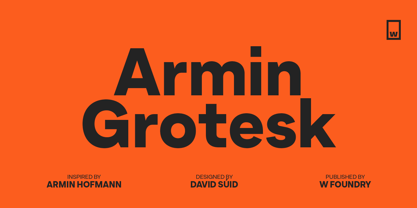
Armin Grotesk Font
The Armin Grotesk Font is a versatile and modern sans-serif typeface that is both clean and highly readable. Its professional and straightforward design makes it an excellent choice for a wide range of projects, including corporate branding, professional websites, technical documentation, and editorial design. This font's minimalist aesthetic and balanced proportions ensure it looks great in both large headlines and small body text. The Armin Grotesk Font is perfect for businesses and designers who need a reliable and sophisticated font that projects clarity and modernity.
What makes the Armin Grotesk Font so exciting is its exceptional versatility and understated character. It's a workhorse font that can be used in almost any context without losing its unique personality. The font’s clean, geometric structure gives it a sense of stability and professionalism, while subtle design choices keep it from feeling cold or generic. This is the kind of font that forms the backbone of a successful brand identity, providing a consistent and polished look across all media.
The Armin Grotesk font family is extensive and robust, offering a wide range of weights from thin to black. Each weight also comes with a matching oblique style, providing you with incredible flexibility to create a strong visual hierarchy and dynamic compositions. This full-featured family includes a complete set of uppercase and lowercase letters, numbers, punctuation, and support for multiple languages.